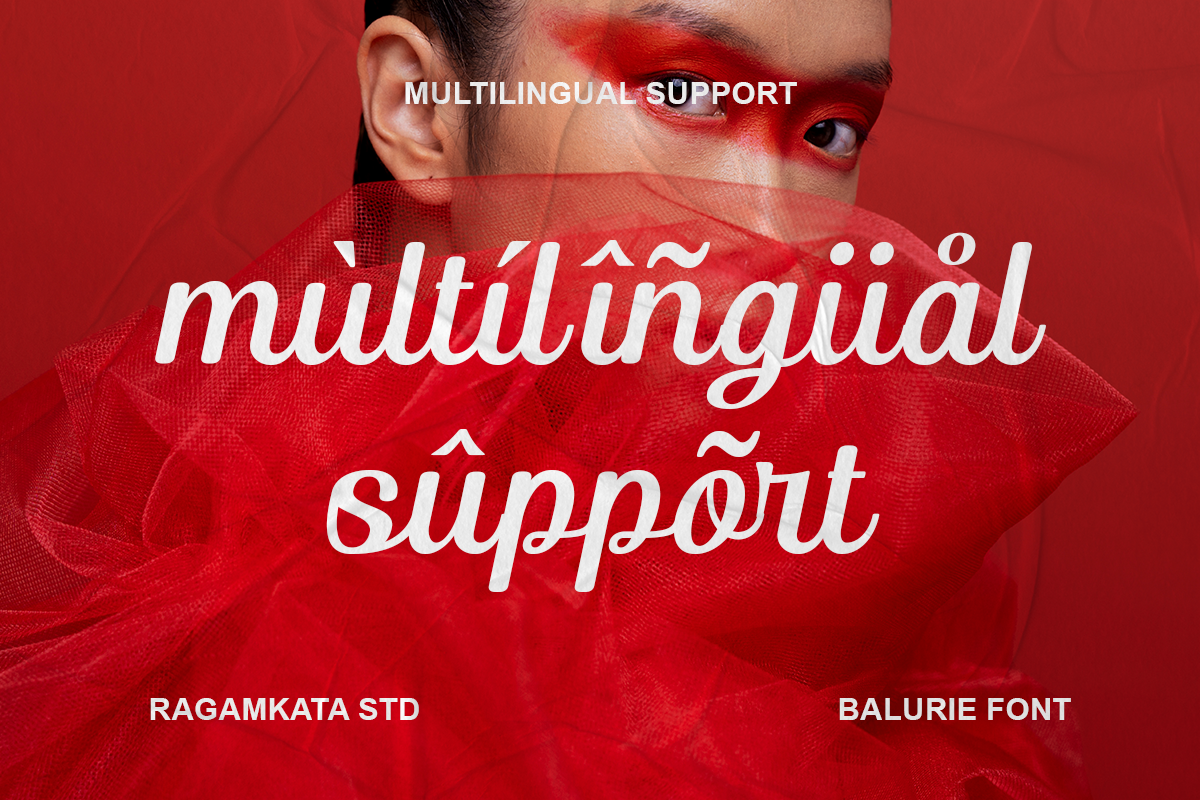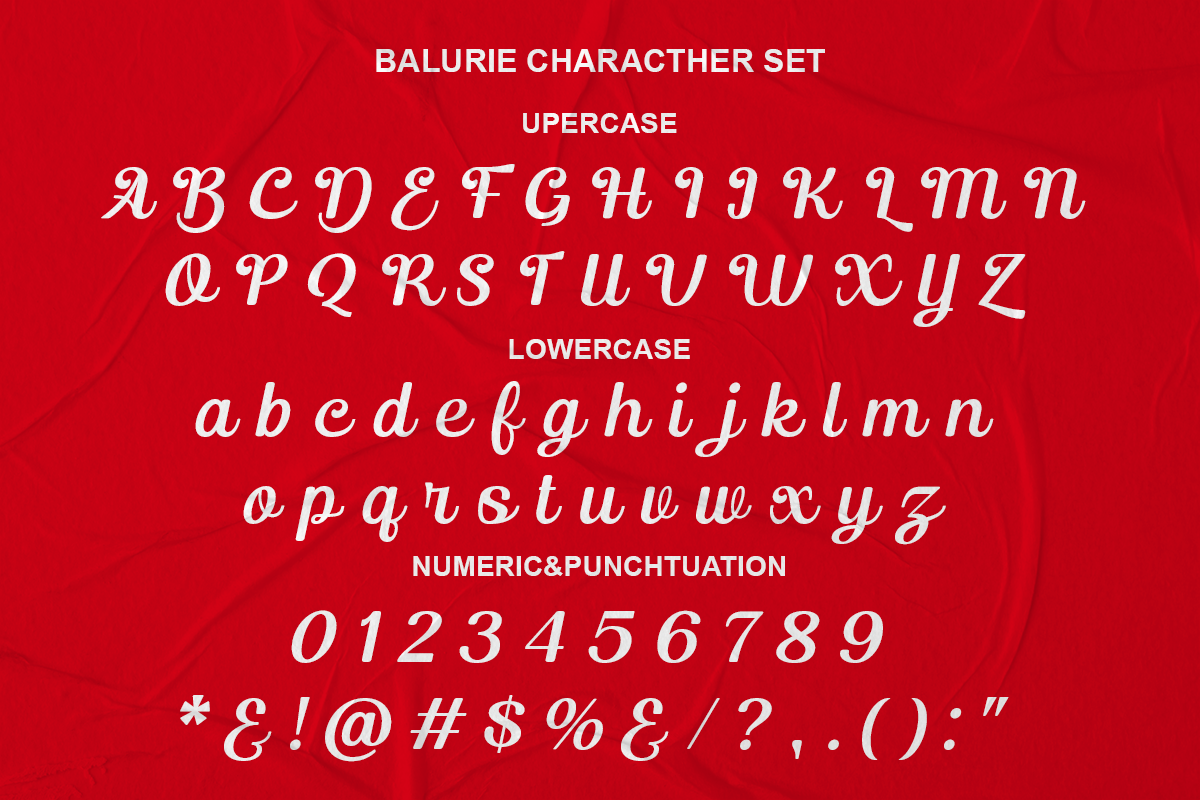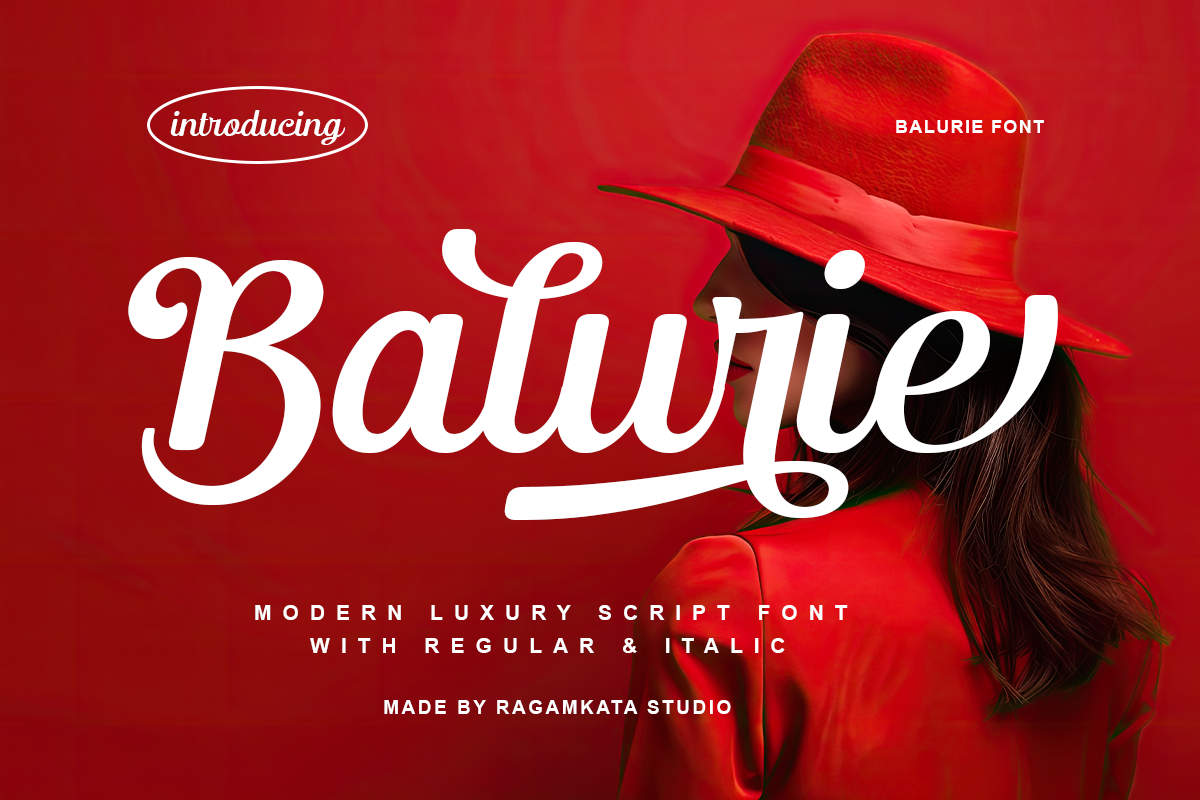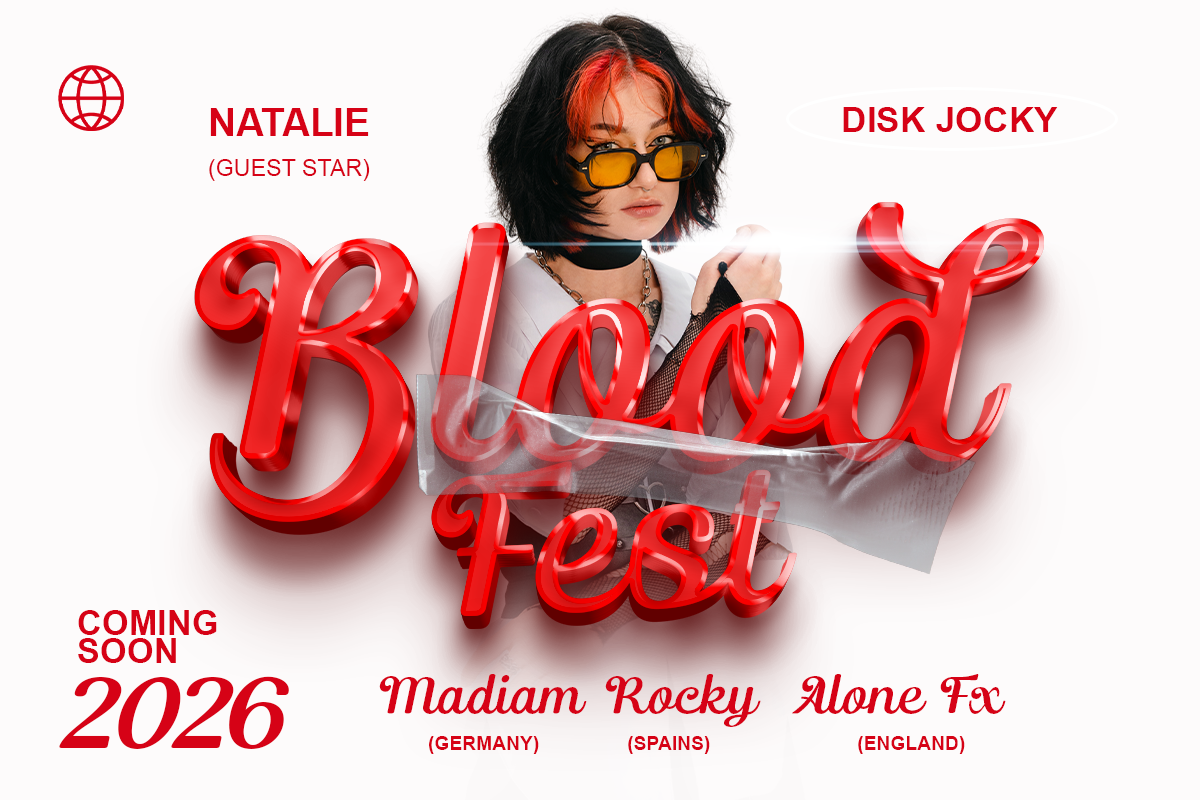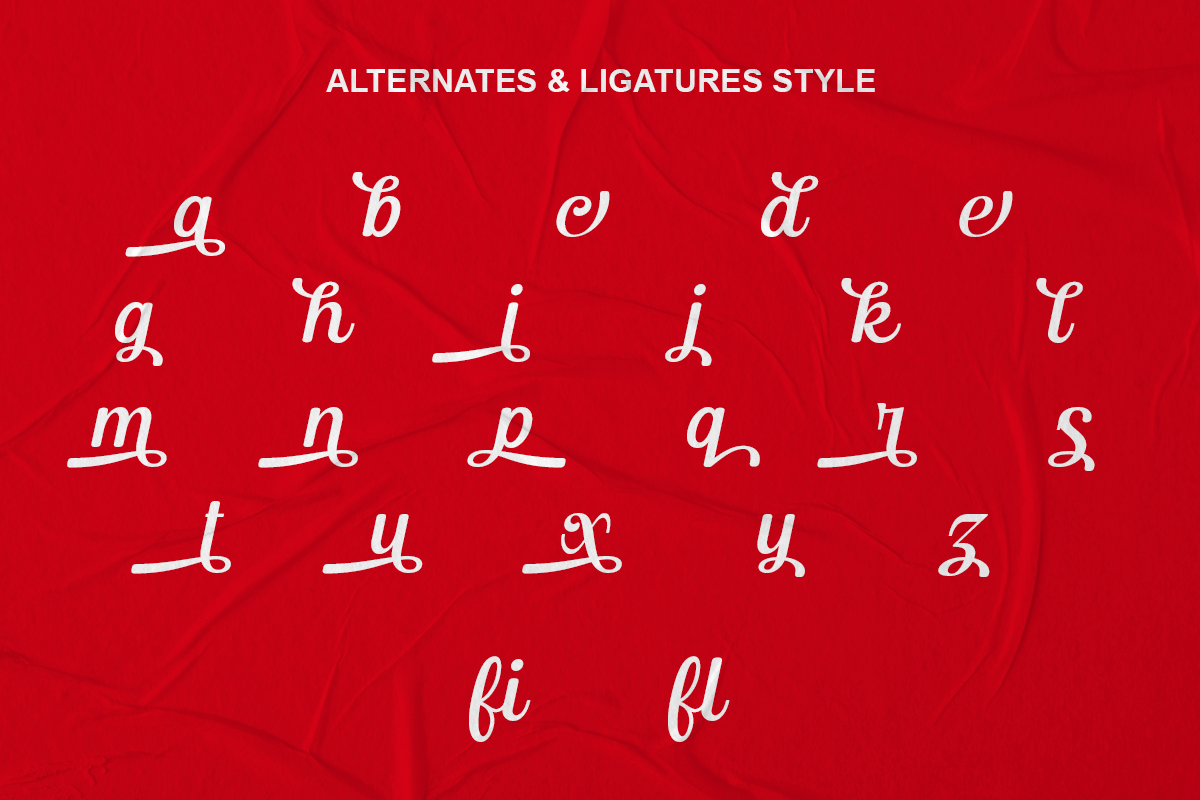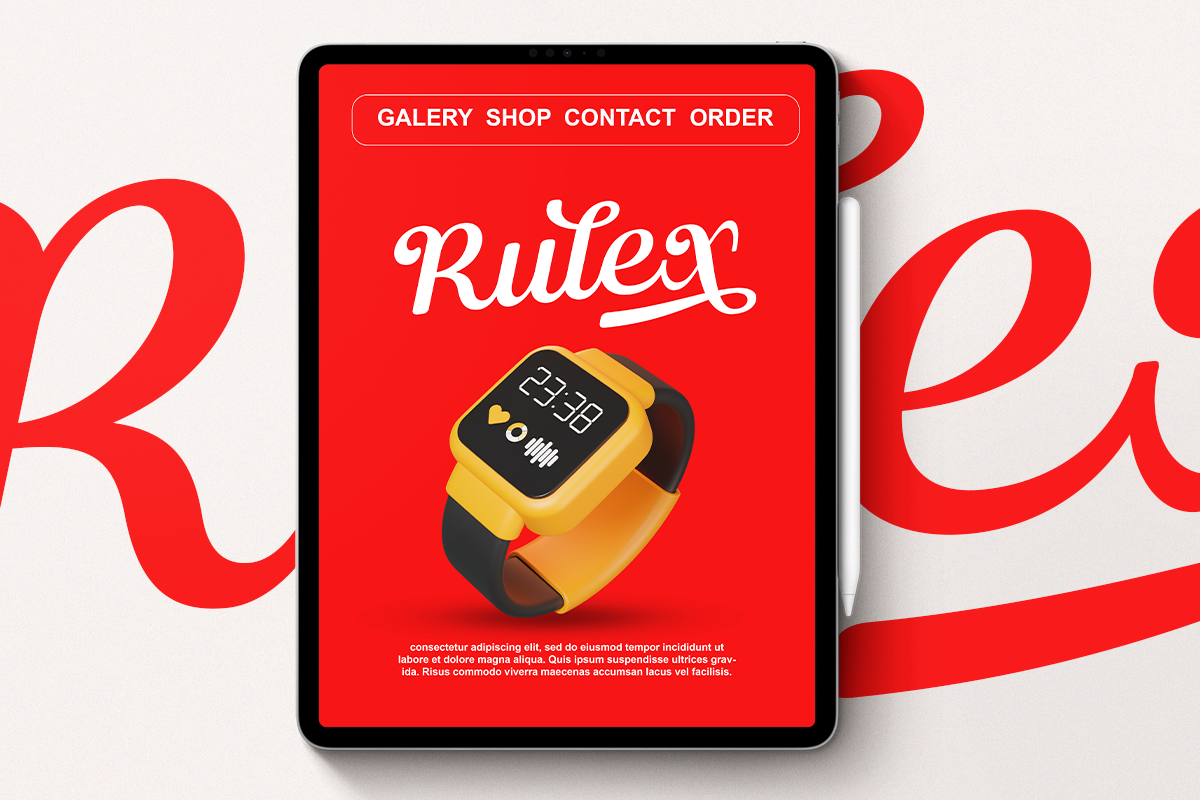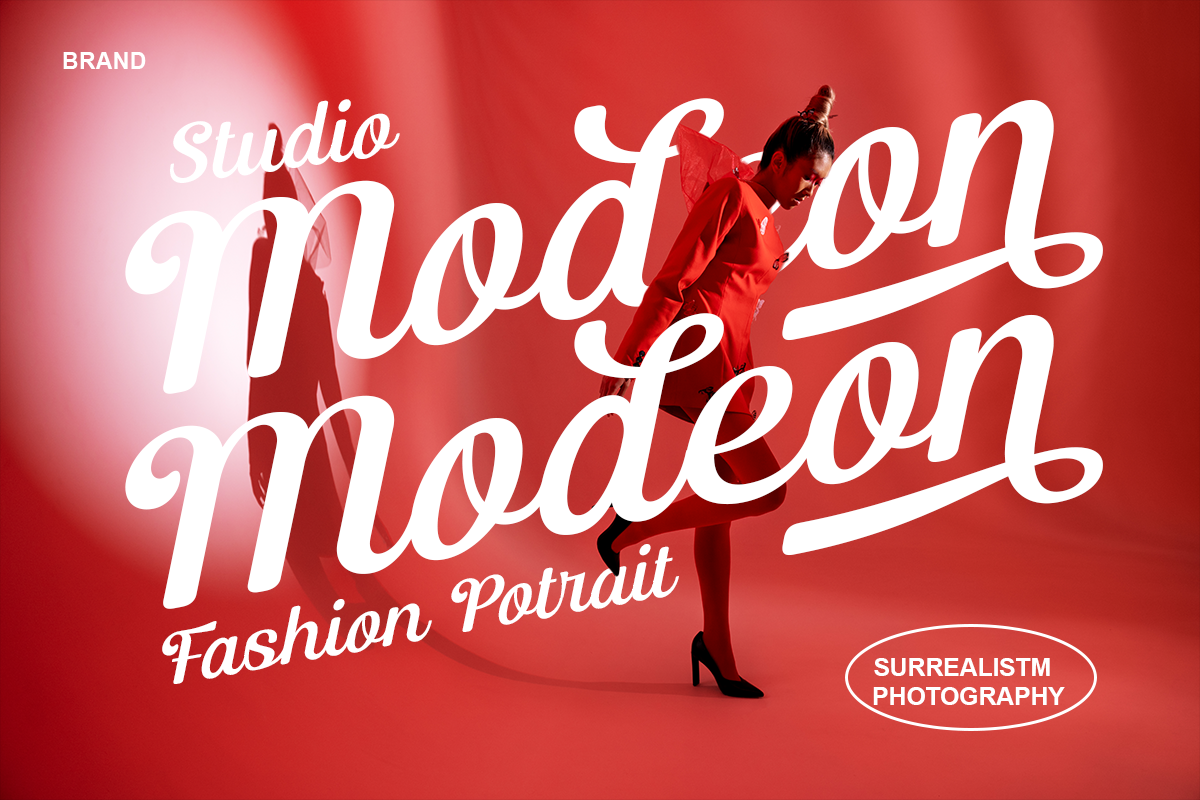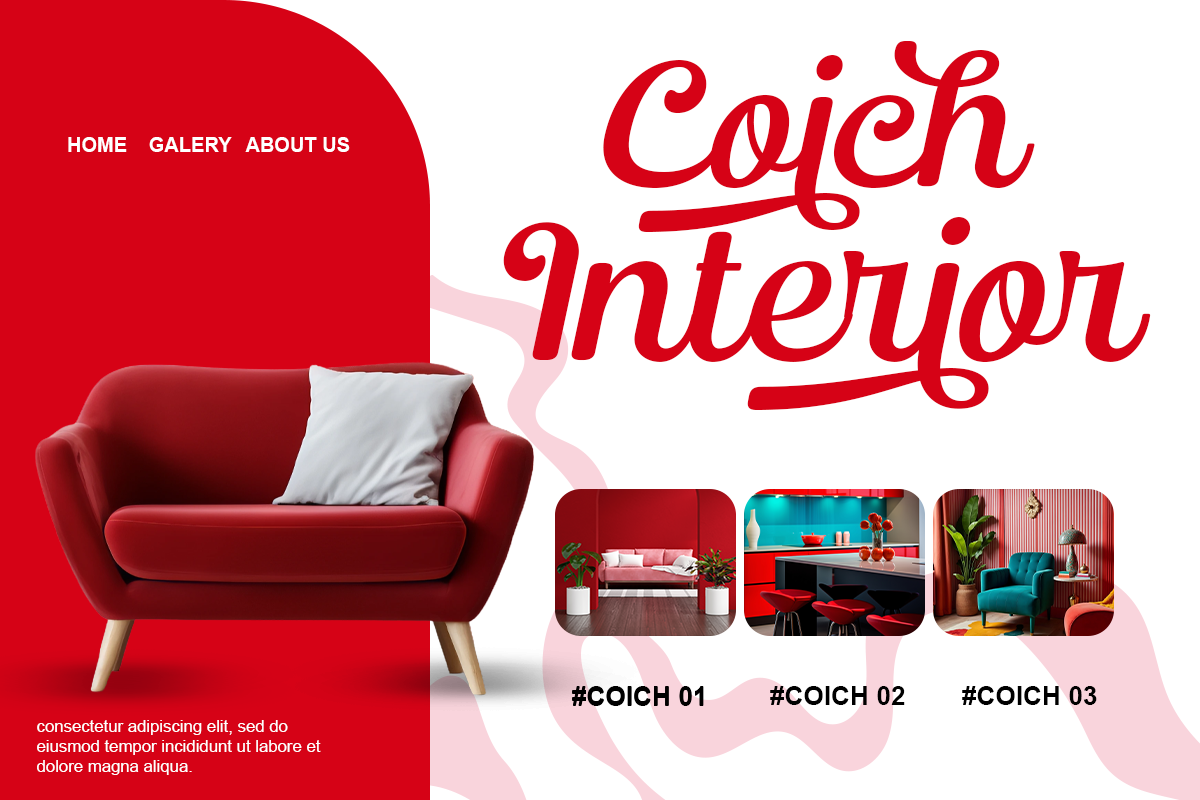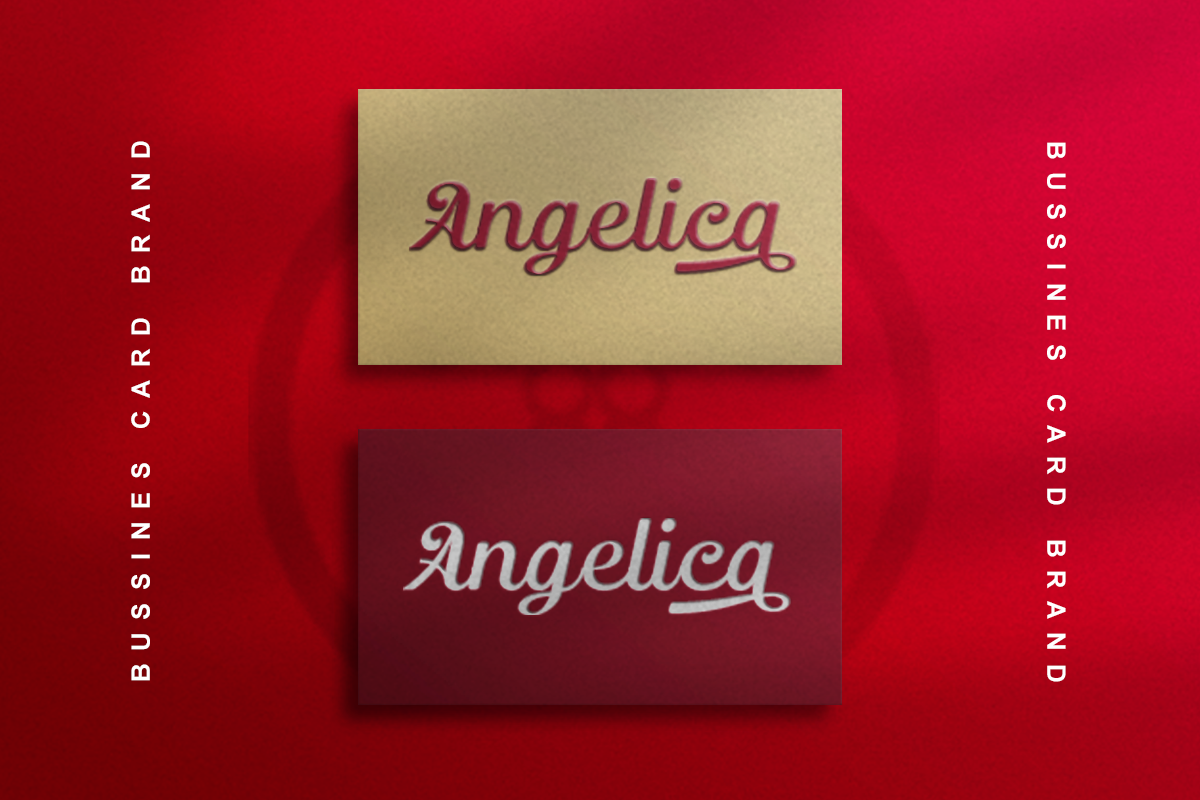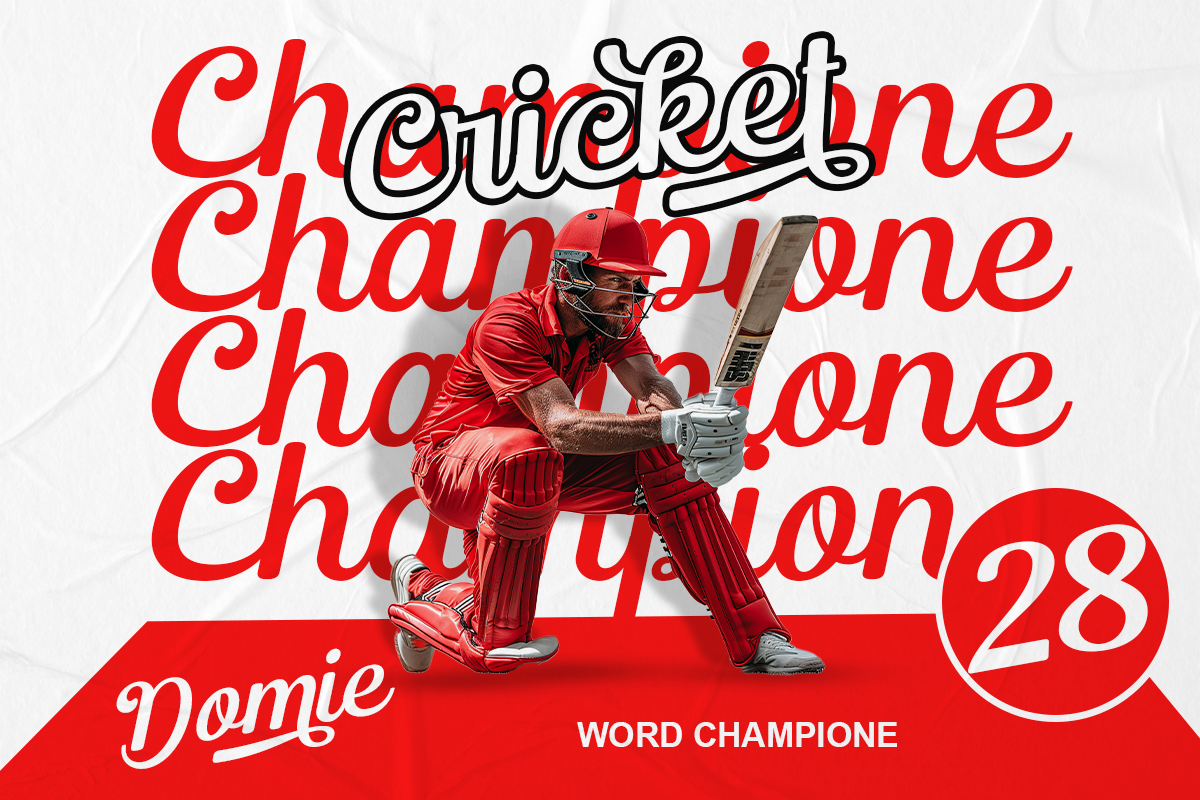
Balurie - Luxury Script Font
Balurie is luxury script font with noble and vintage looks. It has beauty at the beginnings of the strokes, swash capitals and formal design. Balurie has lots of alternate characters, swashes and ligatures. It has also a bunch of tails with different shapes and widths to give the vintage logotype or sports look to your design.
These alternates makes Balurie very versatile. You can design beautiful, elegant and diverse typographic elements with it. It’s well suited for logos, lettering artwork, editorial illustrations to name a few.